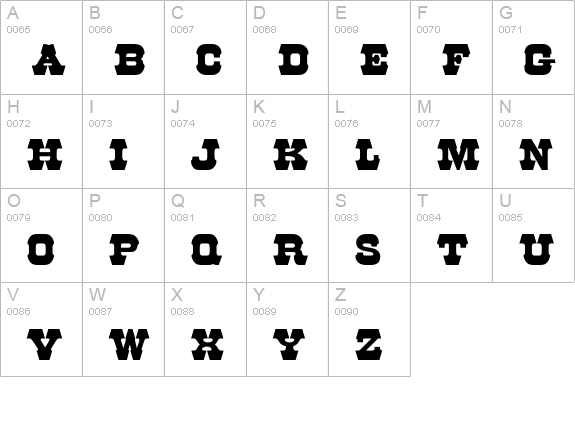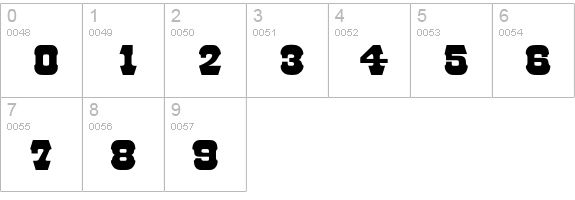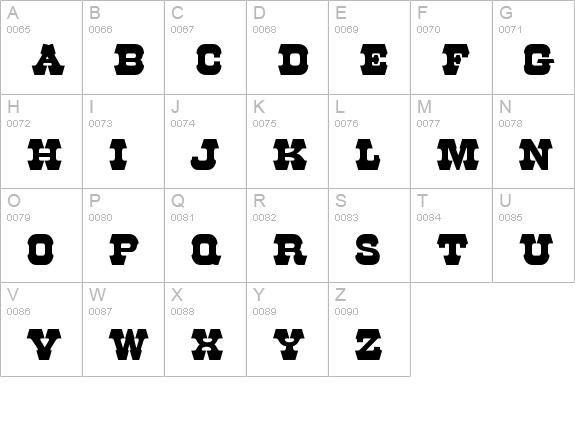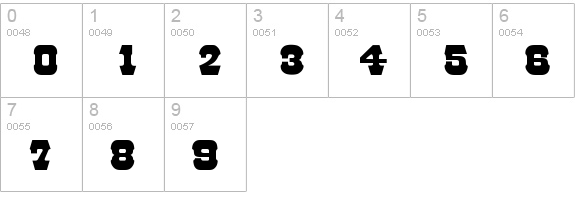
Mustang Font Details
The Mustang font is a stunning display typeface that exudes power, elegance, and sophistication. With its bold lines and sleek curves, this font is perfect for creating eye-catching titles, headings, and logos that demand attention. The Mustang font is inspired by the classic style of vintage car emblems, giving it a timeless and iconic feel. What sets the Mustang font apart is not only its striking design but also the fact that it is available for free download at FontsMarket.com. Whether you're a graphic designer, a branding specialist, or just someone who appreciates high-quality typography, the Mustang font is a versatile and dynamic choice that will elevate your projects to the next level. Download the Mustang font today and unleash its bold beauty in your designs.